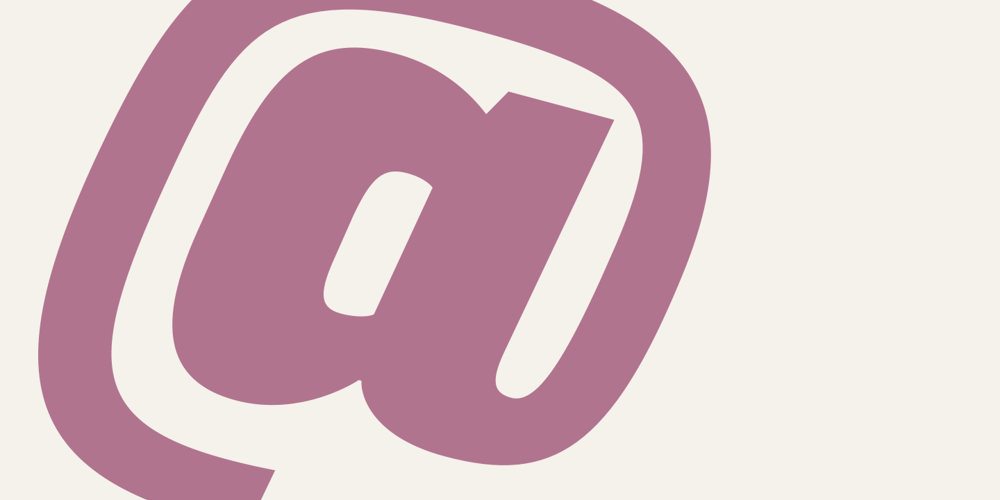
Klint Font Family was designed by Hannes von Döhren and published by Linotype. Klint contains 39 styles and family package options. Type designer Hannes von Döhren created Klint. A sans serif typeface with a technical appearance and humanistic streak. The family includes five weights; each weight ships in three widths: condensed, regular, and extended. All of the 15 Klint variants have a companion Italic, rounding out family at 30 fonts. Klint’s large x-height makes the design especially legible at small point sizes. In today’s day and age, appliance manufacturers and/or companies in the mobile phone, computer hardware and software or Internet sectors are becoming ever more important. Klint fills the rising need for superfamilies with a technical feeling that are also legible in both text and display settings. Through conspicuous letters like R, K, k, or g, as well as the independent nature of its Italic, Klint exudes an ethos that separates it from the competition. Longer text passages in brochures, catalogs, or magazines would be well served by Klint’s Light, Regular, and Medium weights. The heavier cuts are optimized for poster settings and headlines.”